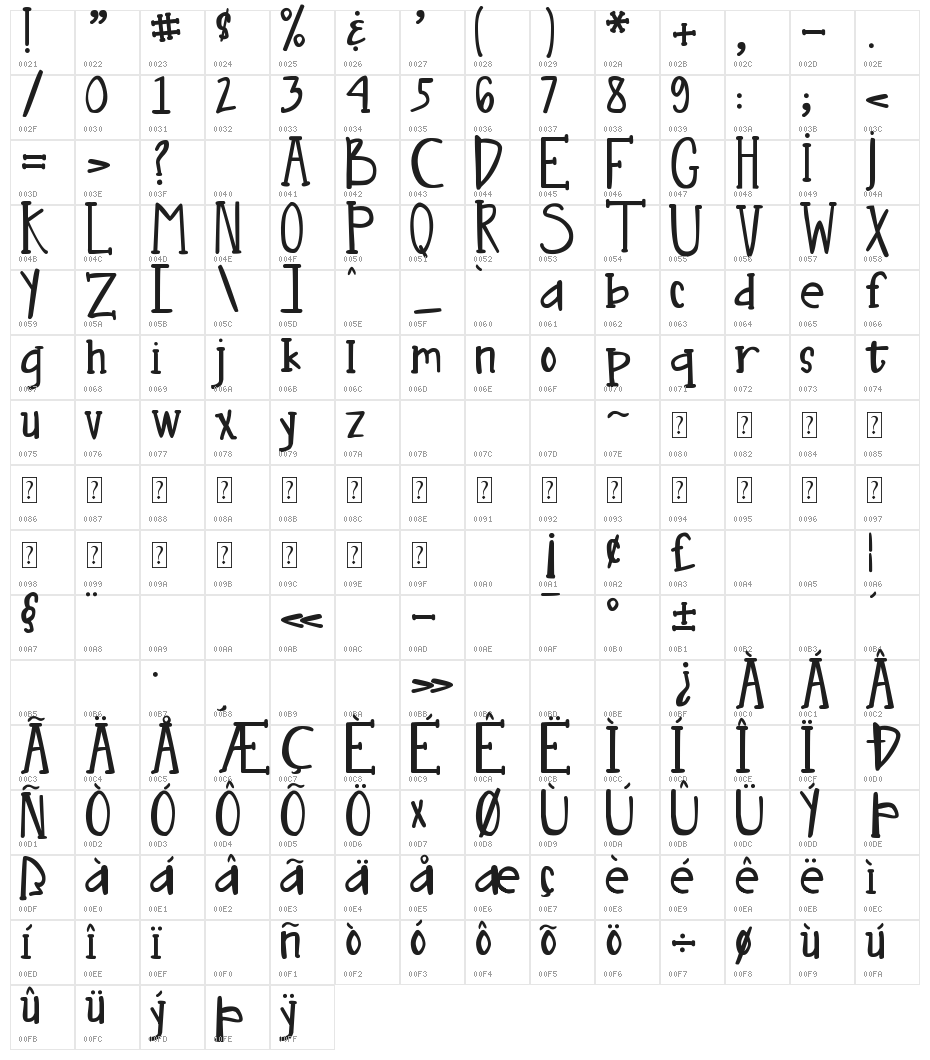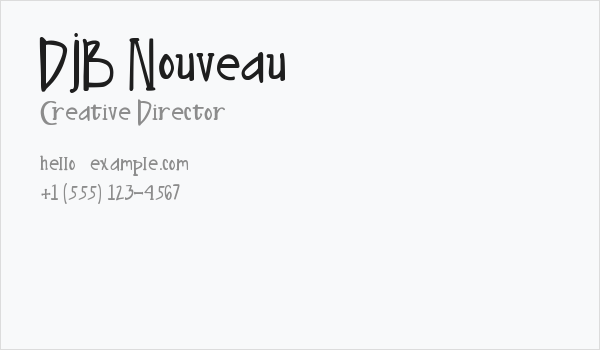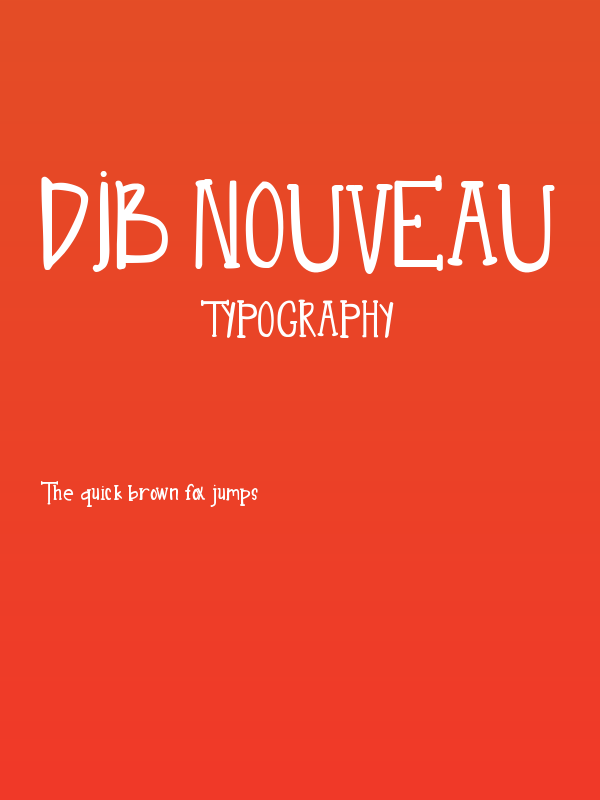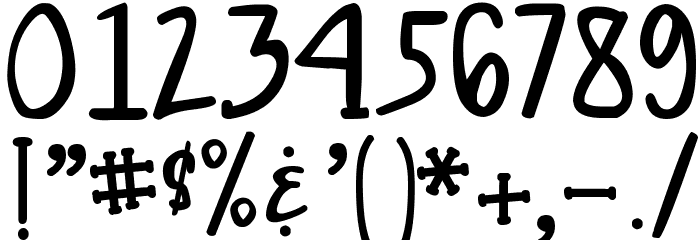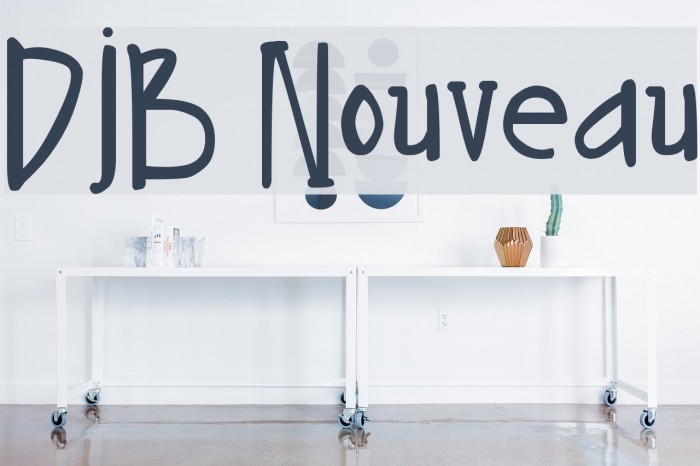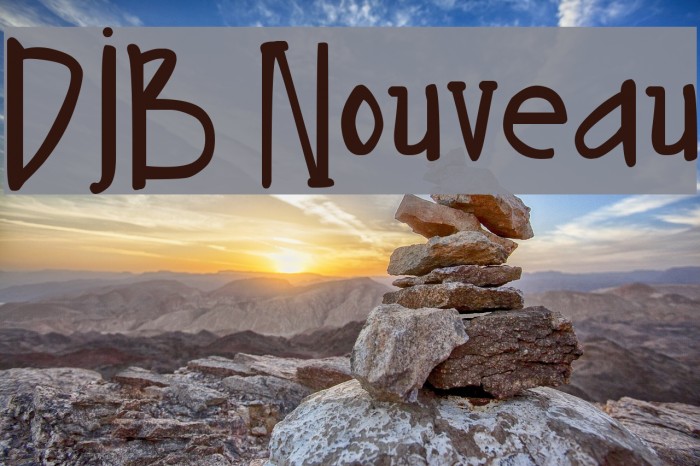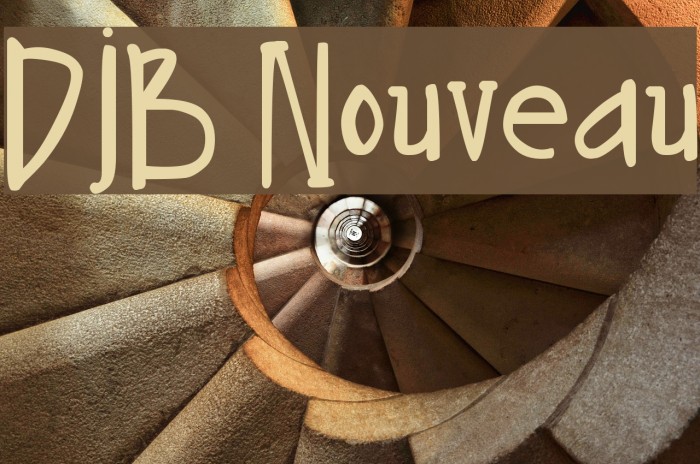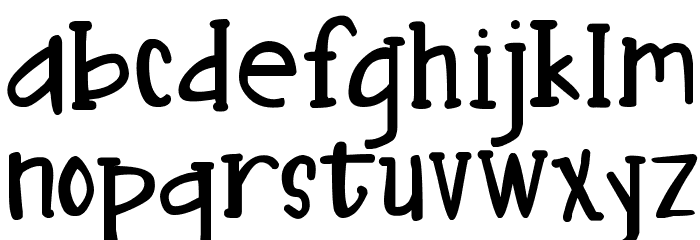
DJB Nouveau Font
DJB Nouveau Description
This playful and whimsical font features a hand-drawn style with a casual and friendly appearance. The uppercase letters are tall and slightly narrow, with a mix of straight and curved lines that give them a unique character. The lowercase letters maintain a consistent style, with rounded edges and a slightly uneven baseline, adding to the informal feel. Numbers are bold and easy to read, matching the playful nature of the alphabet. Special characters are creatively designed, fitting seamlessly with the overall aesthetic. This font exudes a sense of fun and creativity, making it perfect for projects that require a personal touch.
| Proposed Projects | Ideal for children's books, greeting cards, playful branding, and creative posters. |